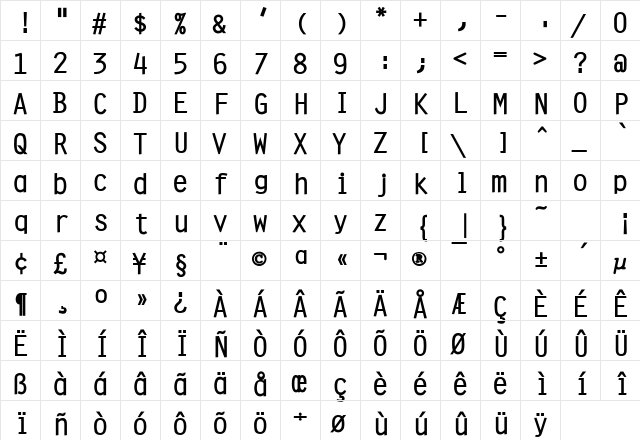
Clean Bold
Design Context for Clean Typeface
Clean offers clean, dependable letterforms without strong stylistic allegiance, making it a practical choice for designers who need flexibility. Its bold stroke weight gives it real presence on the page.